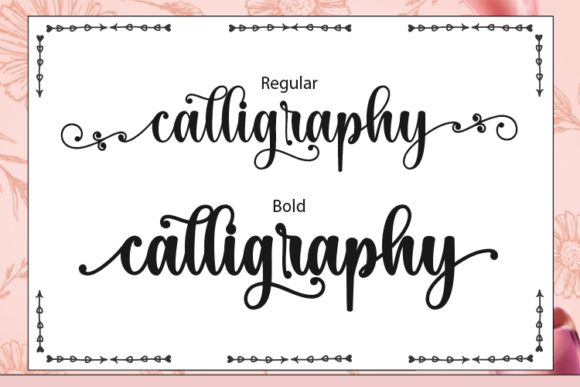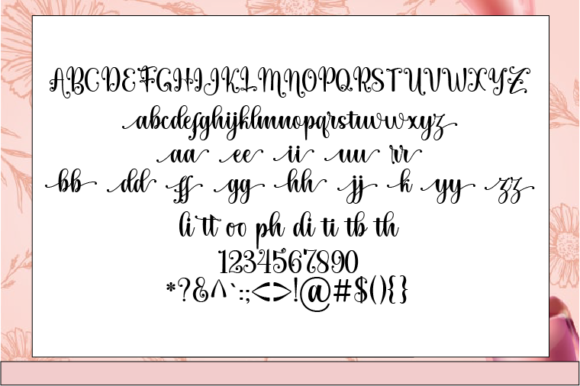
Sweeth Calligraphy Font
db-ku.com - Script & Handwritten -- Sweeth Calligraphy is a modern script font that features delicate flourishes that will add a unique element to your designs such as greeting cards, wedding invitations, branding, or logo design.